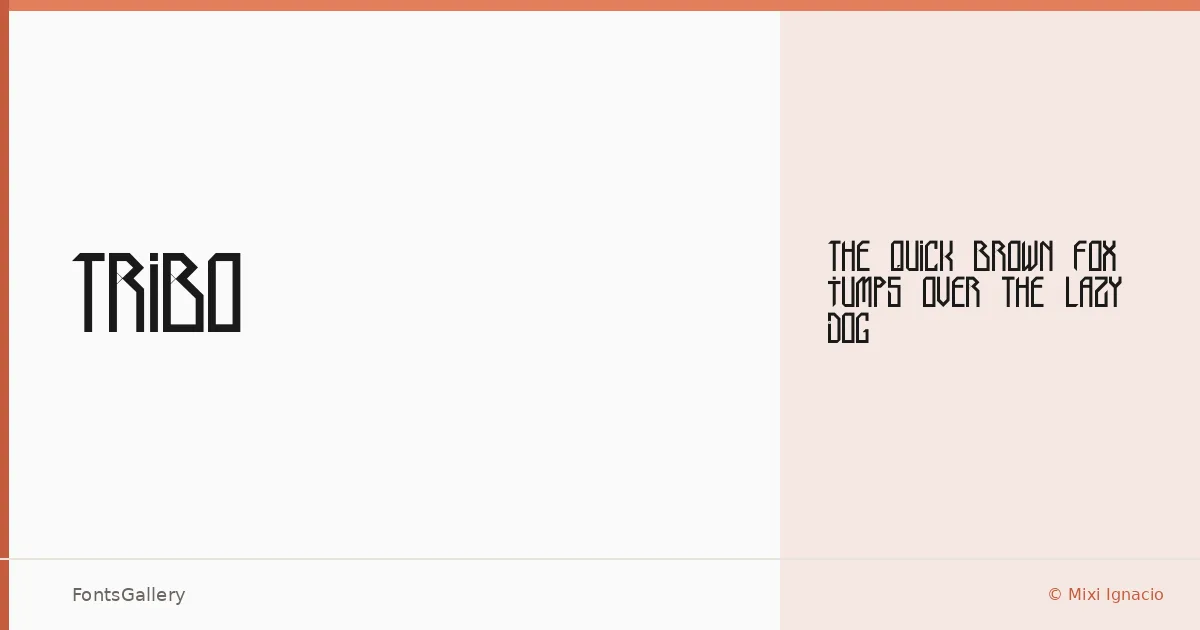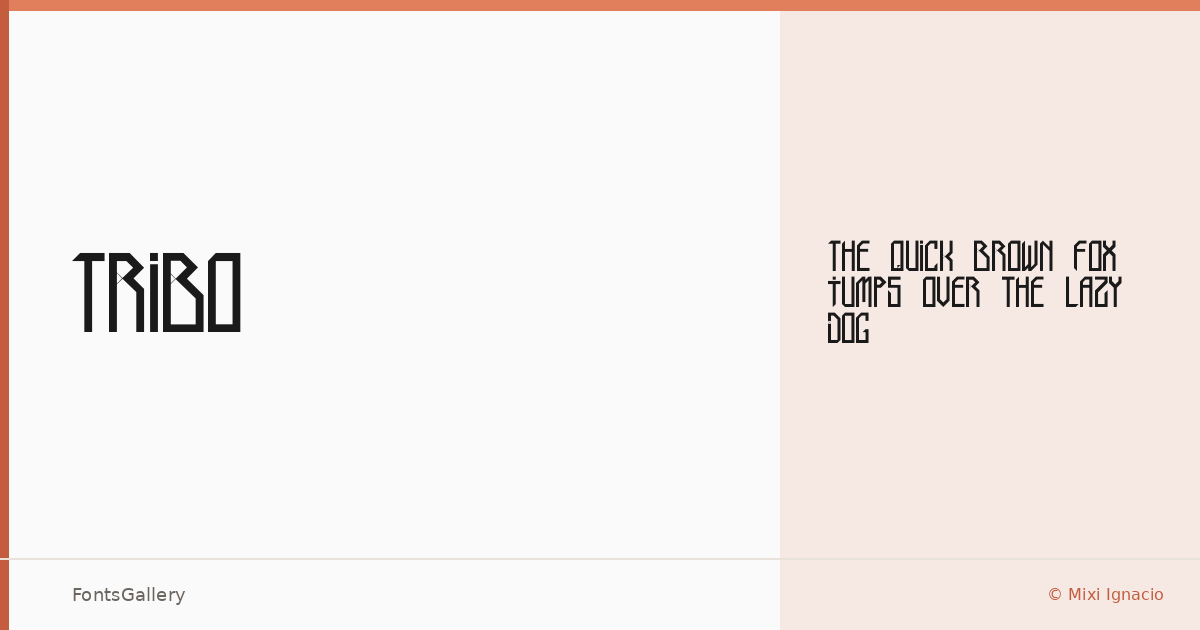
About Tribo Font
There is something deliberately tense about these letterforms — a collision between raw industrial energy and something older, almost tribal in its insistence. Tribo is a single-weight display face designed by Mixi Ignacio, and its character sits at that charged intersection where futuristic structure meets vintage weight and presence.
Squarely in the display category, it carries a bold, modern attitude without abandoning a certain roughness that keeps it from feeling clinical. The family ships as a single Regular cut in TTF format, so the expressiveness has to come from the letterforms themselves — and it does. Set large, the forms hold their ground with the kind of authority you want in a headline or a logo mark.
This face is built for big moments: posters, branding systems, logotypes, and apparel graphics where the type needs to carry visual weight on its own. At display sizes it pairs well with the cool rationalism of Helvetica or Josefin Sans, and it can sit alongside the editorial softness of Canela or ABC Arizona when a project calls for contrast between warmth and edge. Asap works if you need a workhorse text companion that stays out of the way.